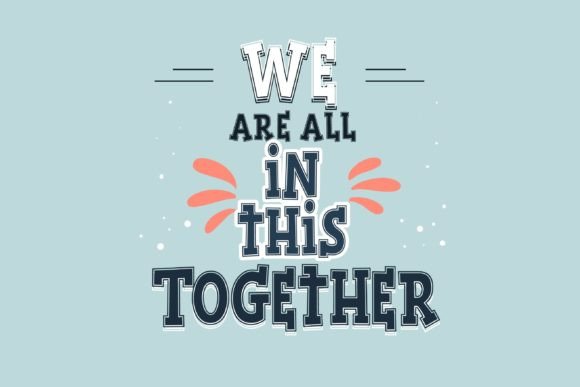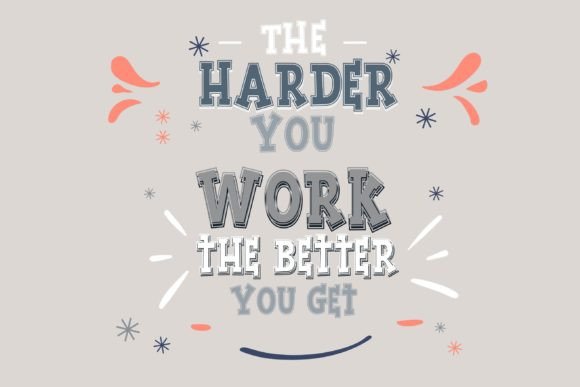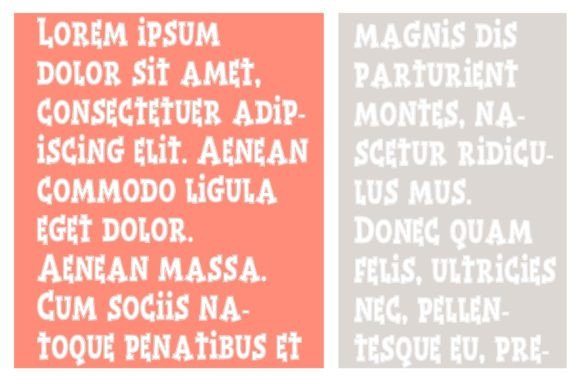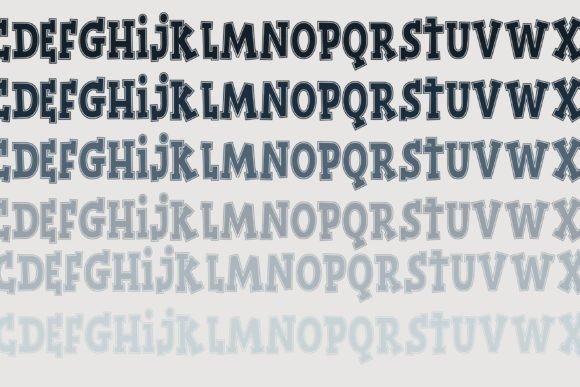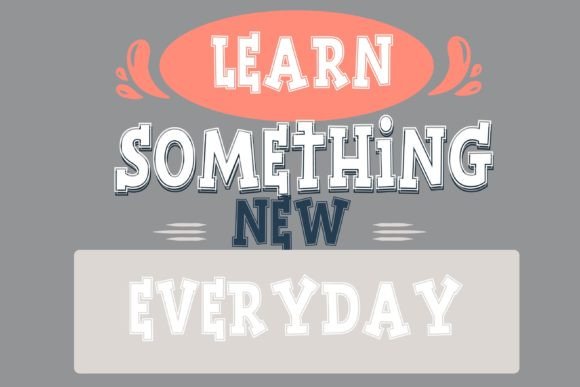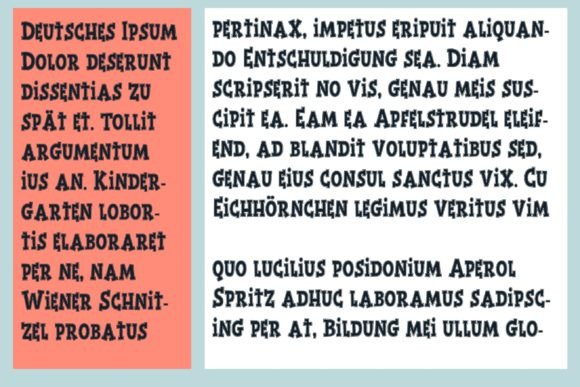
Introduction to College Freshman Font
College Freshman is an all-caps serif font that sports a double outline.
Add it to your most creative ideas and notice how it makes them come alive .
Key Features of College Freshman Font